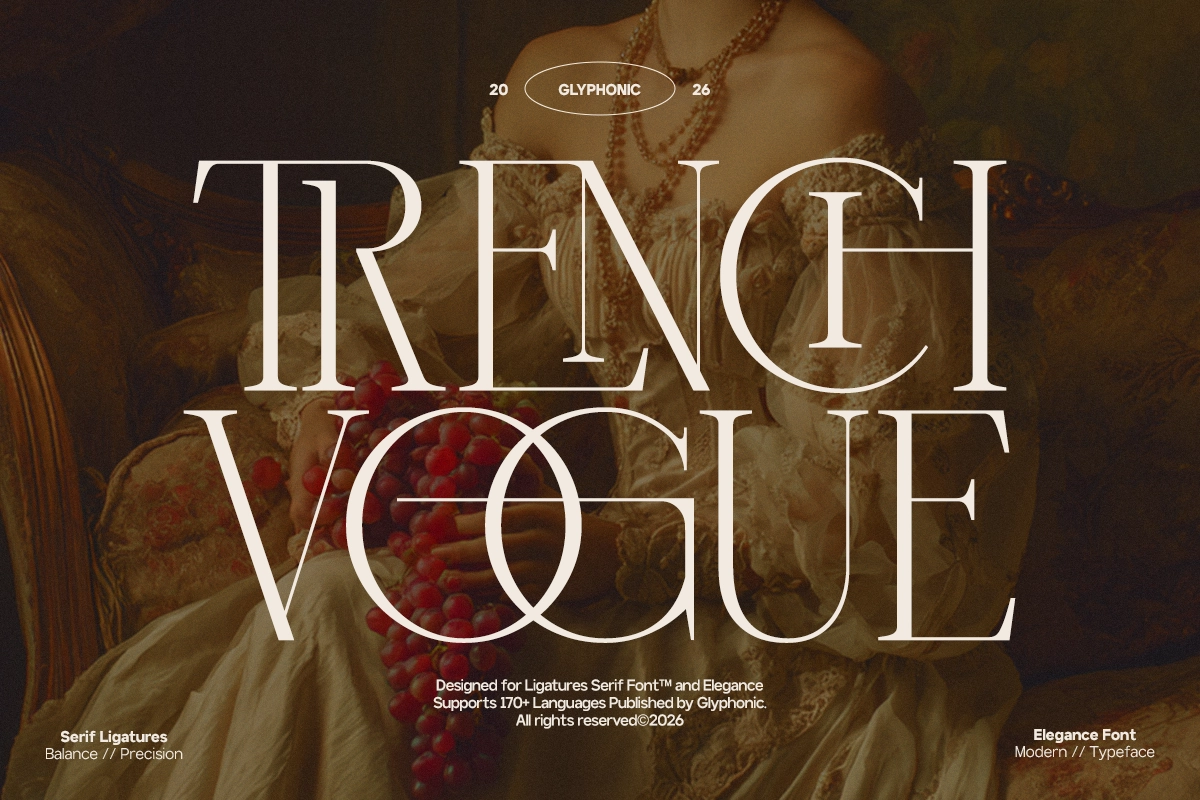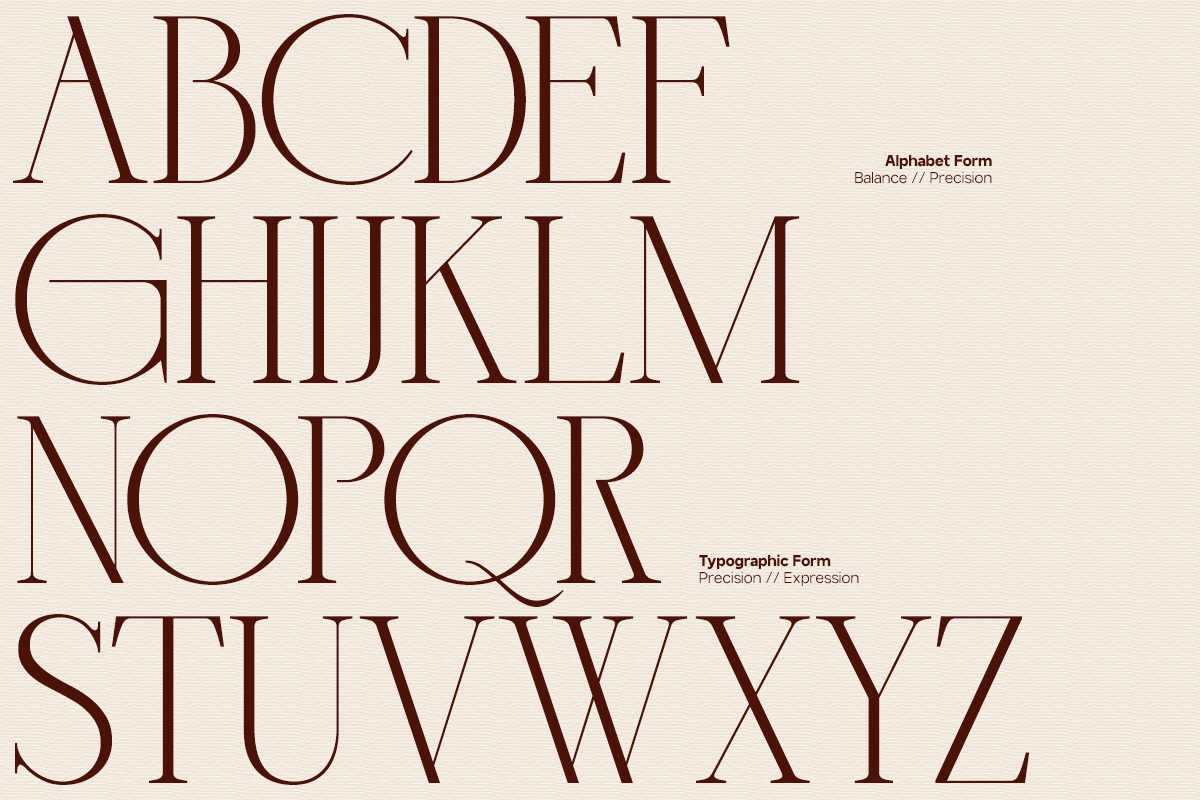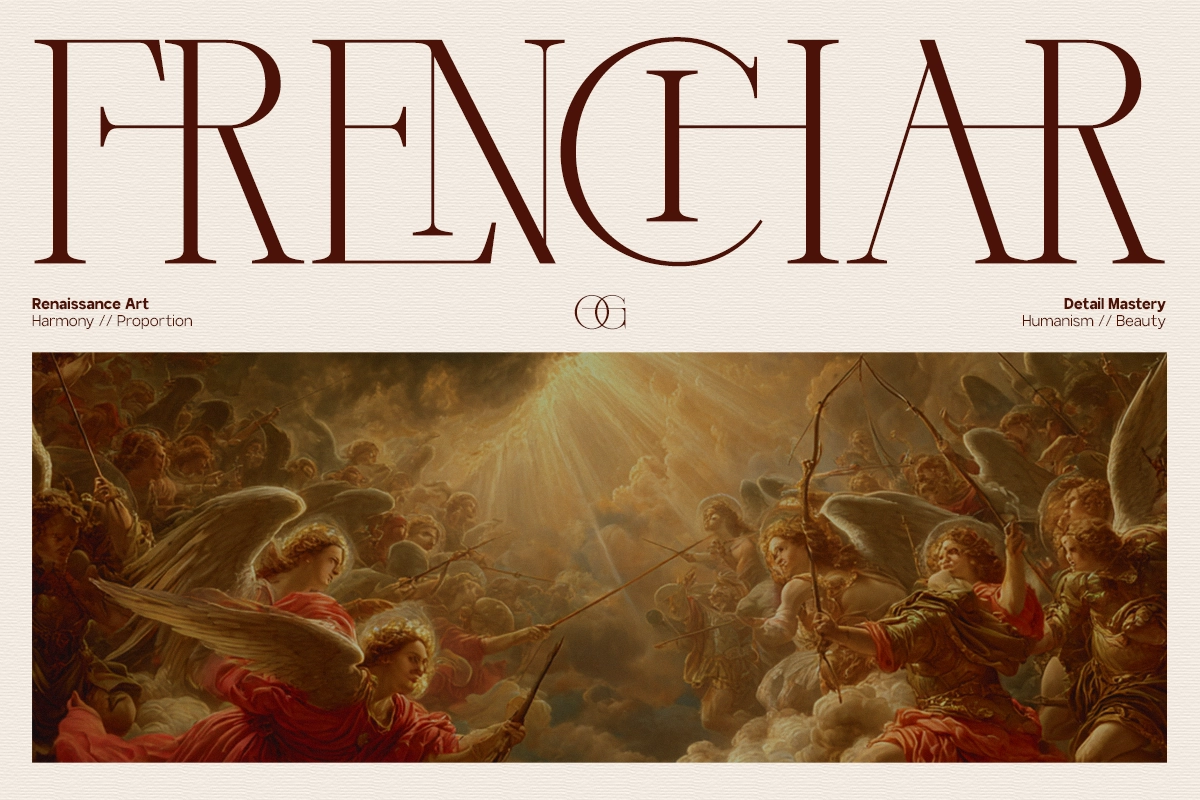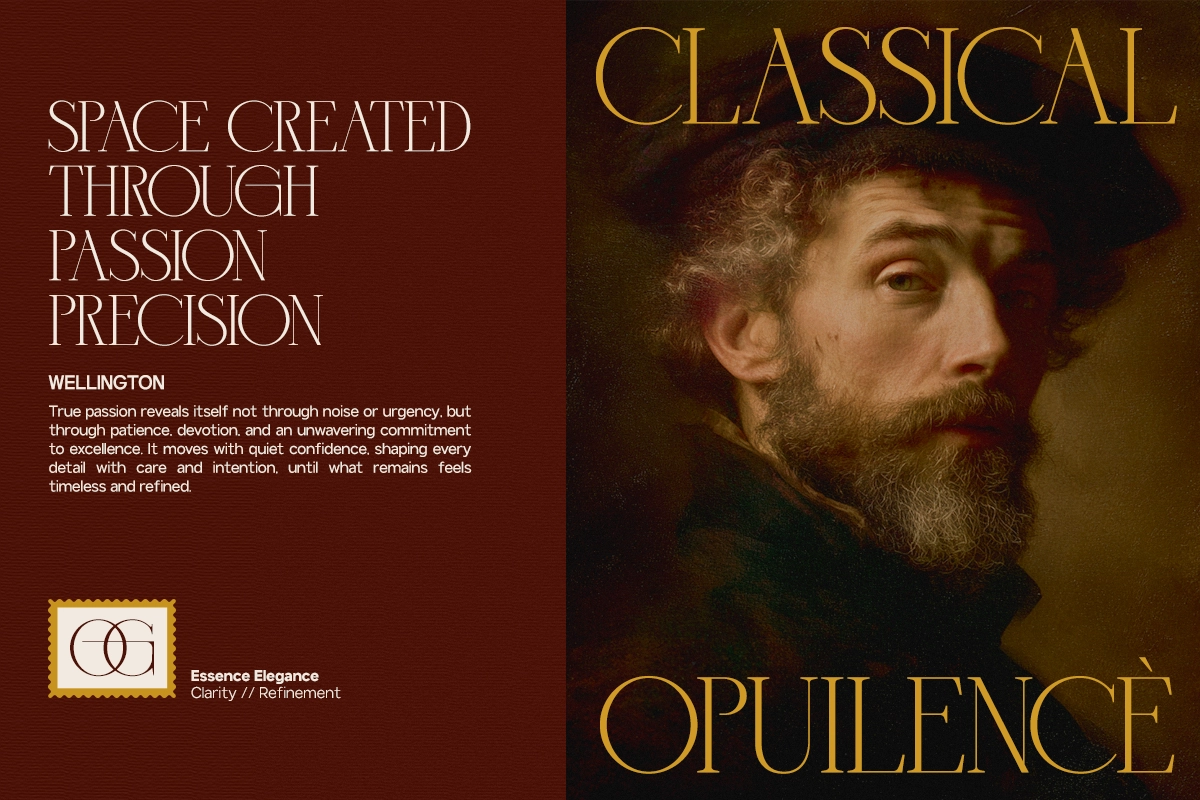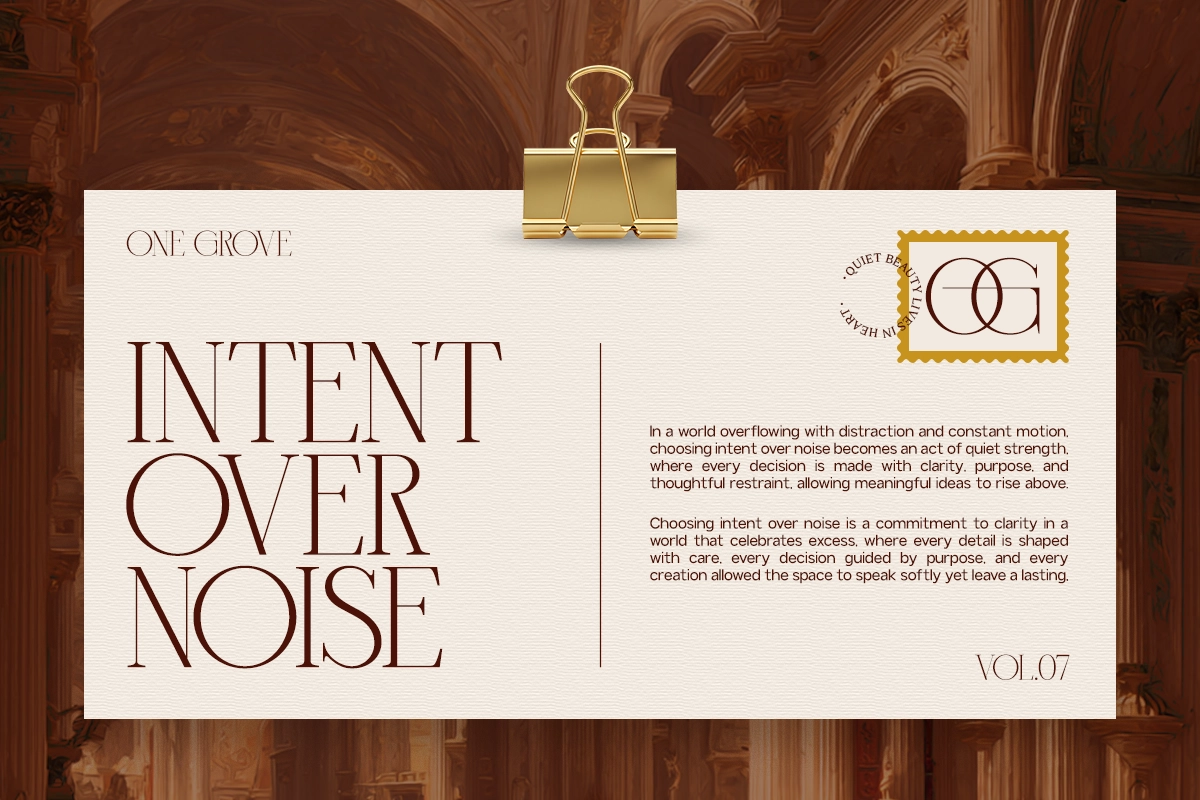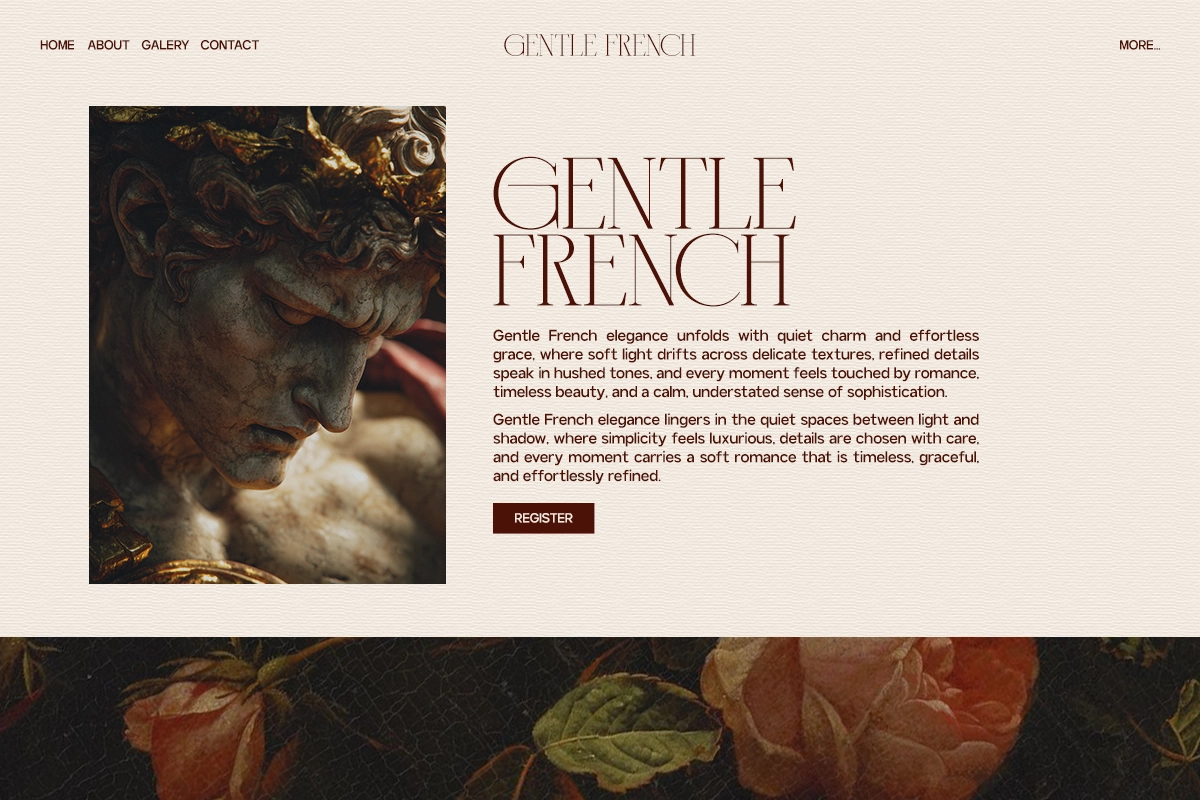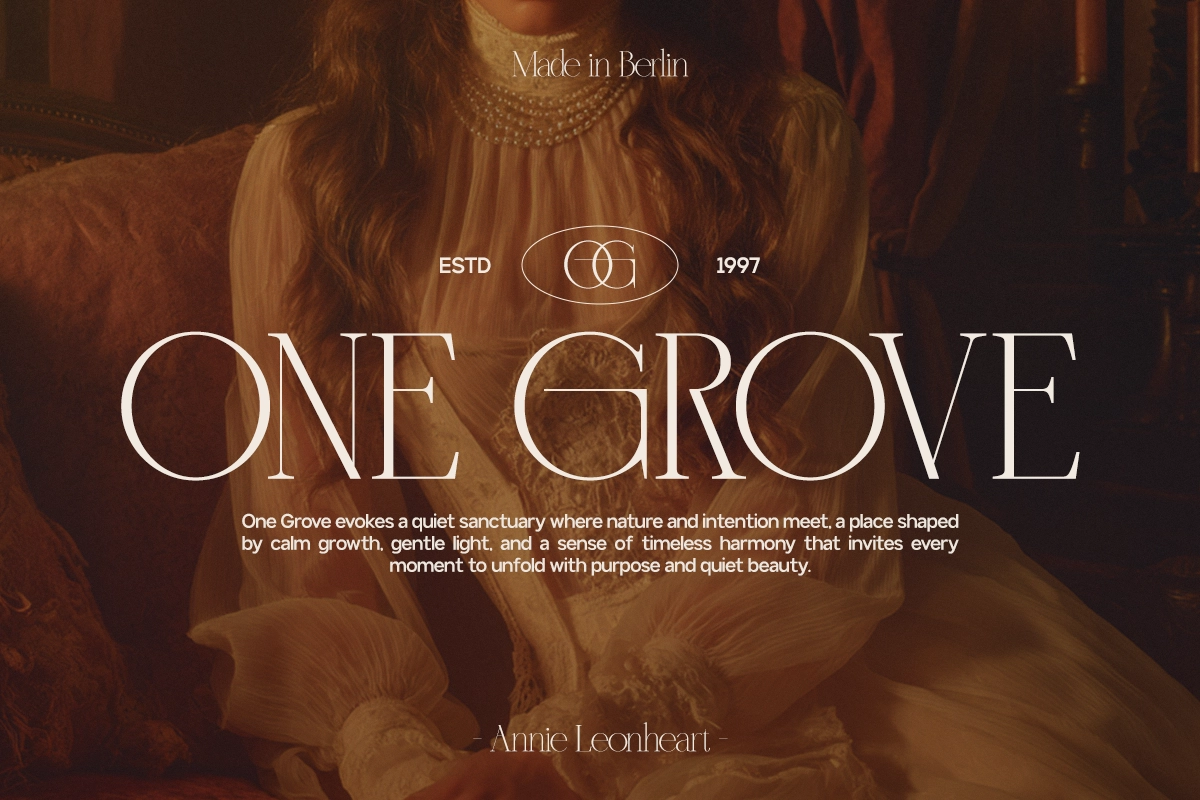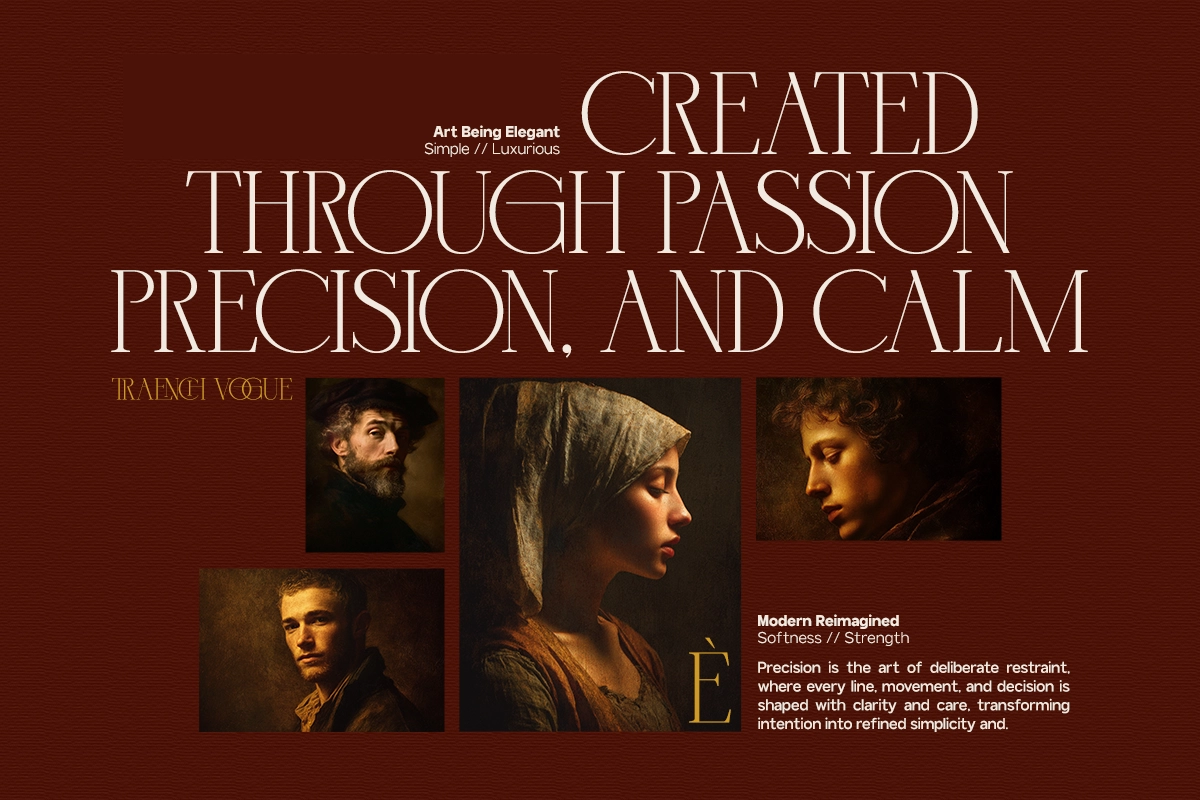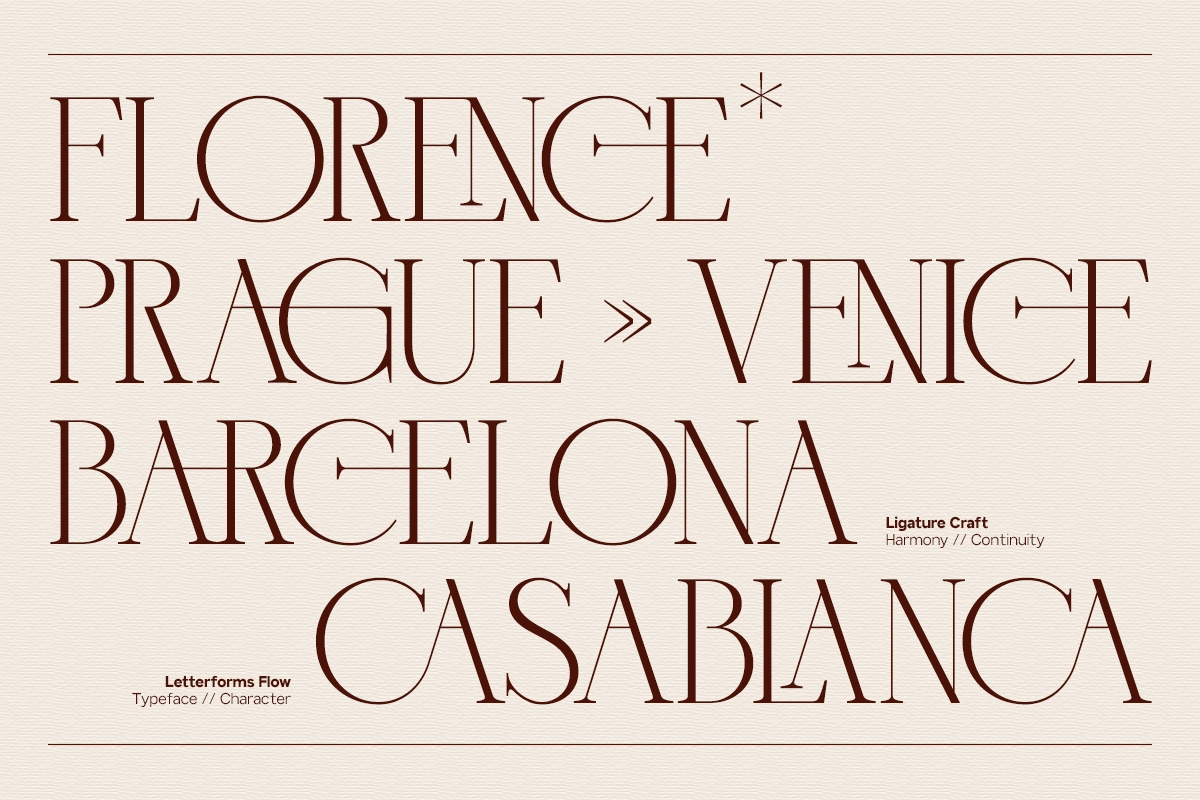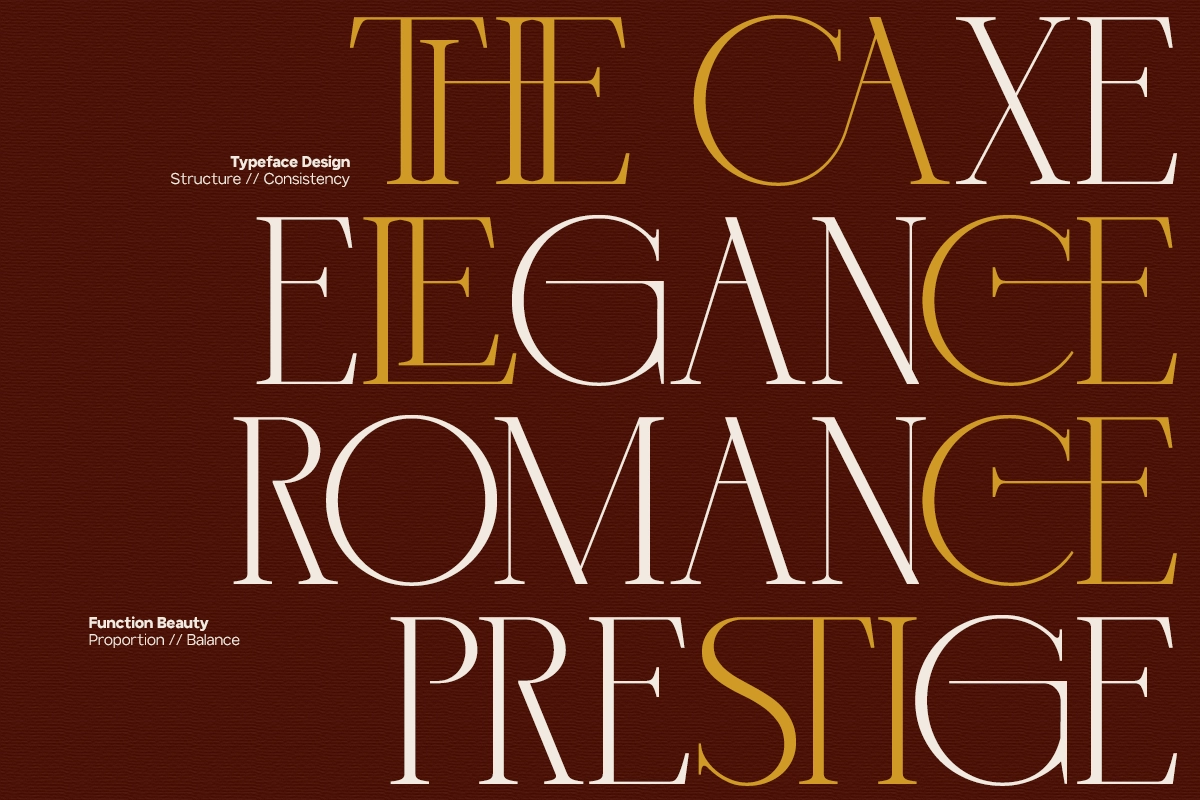
GC Trench Vogue - Chic Elegant Serif
GC Trench Vogue - Chic Elegant Serif is a sophisticated typeface crafted to express modern fashion and timeless elegance. With refined curves, graceful contrast, and perfectly balanced proportions, it delivers a chic and confident visual tone that enhances any design.
Inspired by high-fashion editorials and luxury branding, this serif font is ideal for magazines, beauty packaging, boutique identities, and elegant logos. Its delicate yet distinctive letterforms create a seamless blend of contemporary style and classic sophistication, making every composition feel polished and premium.
• Chic Elegant Serif Construction